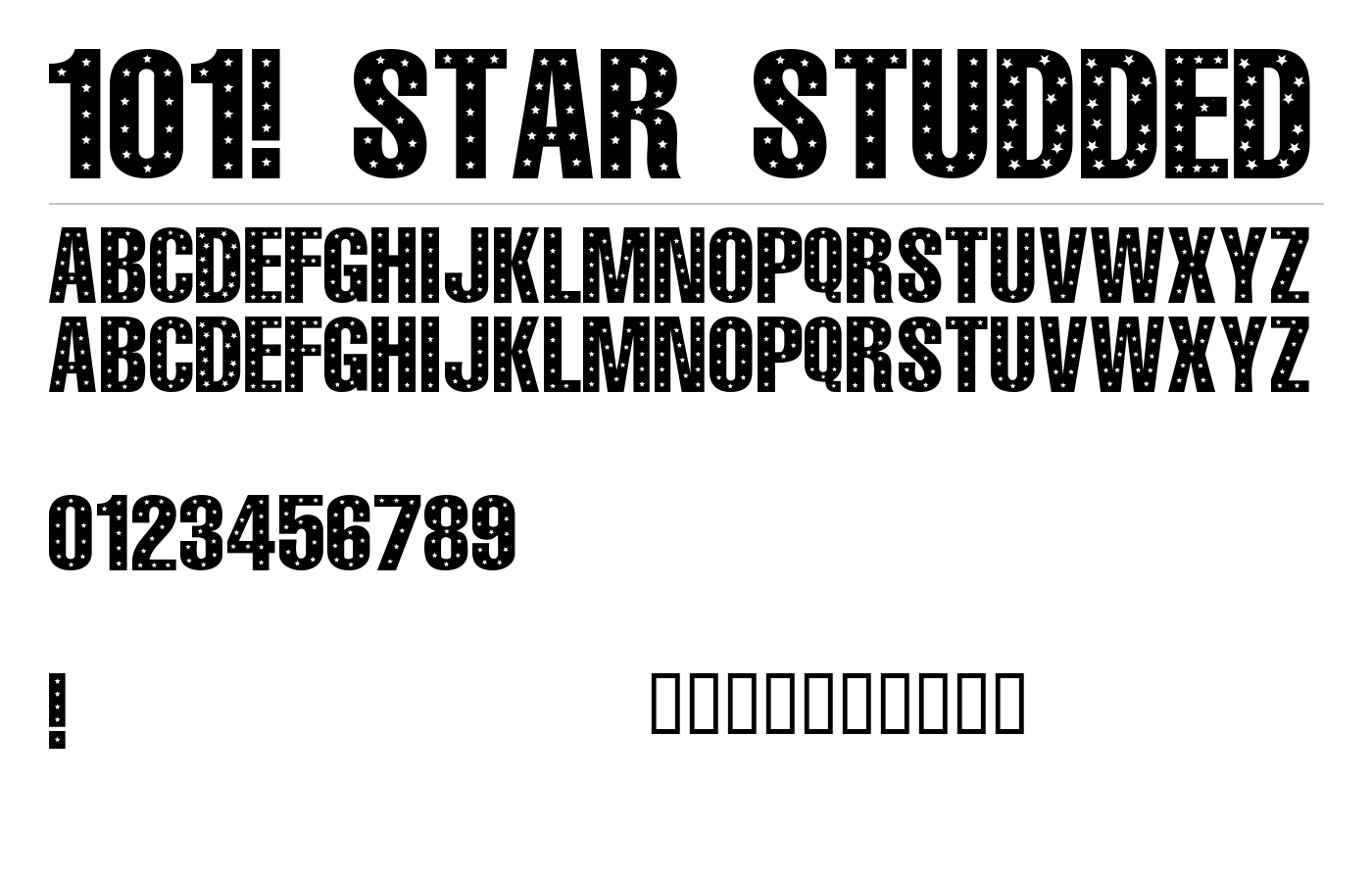
101! StaR StuDDeD is a bold, condensed sans serif display font with a playful and eye-catching pattern of stars embedded within its thick letterforms. Its strong geometric shapes and high contrast make it ideal for headlines, posters, and branding that needs a fun, energetic vibe with a touch of retro charm. This font works great for designs aiming to stand out and bring a lively, festive mood to fashion, entertainment, or event-related projects.
101! StaR StuDDeD Font
About 101! StaR StuDDeD Font